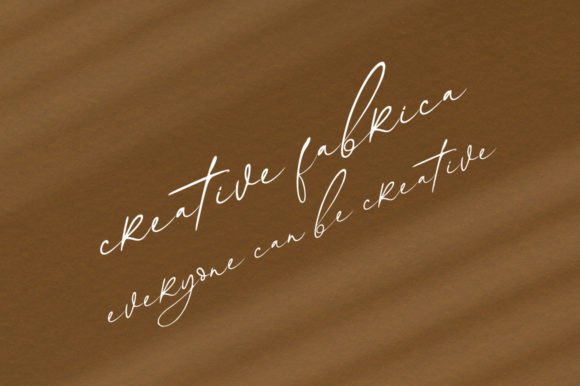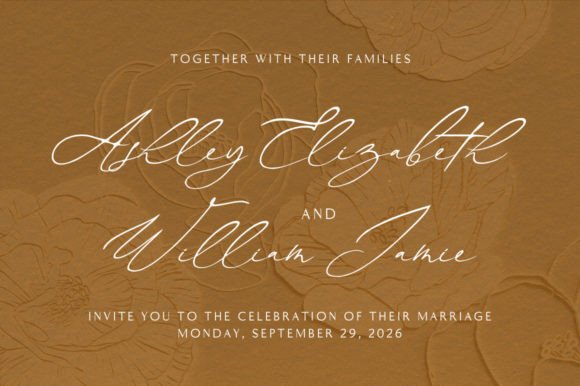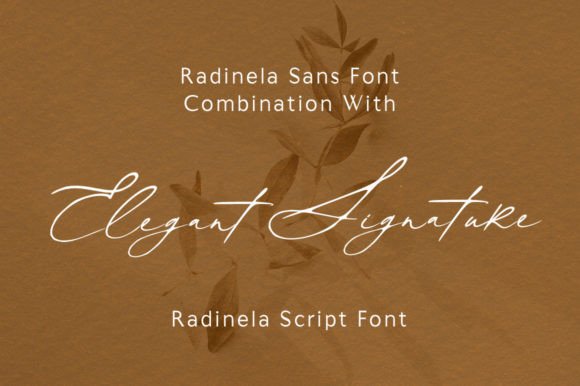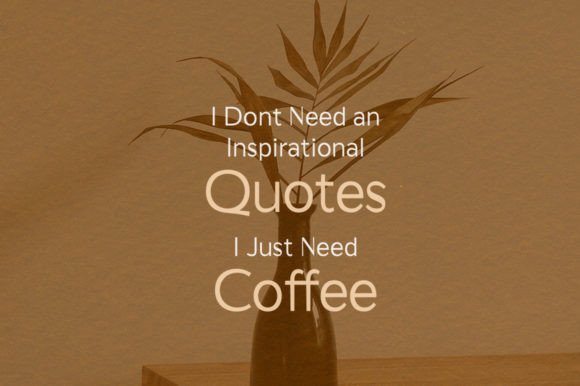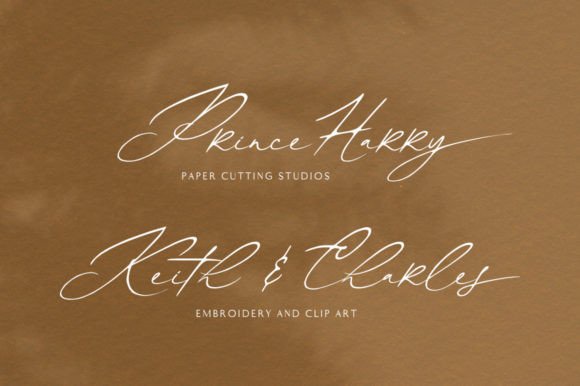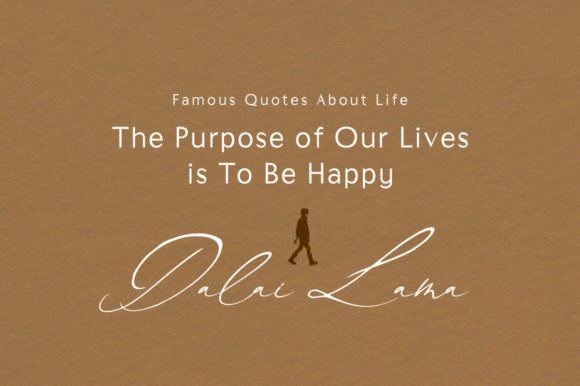
Introduction to Radinela Font
Imagine you’re working on a creative project and you’re struggling to find the perfect font to match your vision. The words on your screen blend together, and your design feels incomplete. That’s where the Radinela Font comes in – a stunning and versatile font that can elevate your design to the next level.
As a designer, you’re constantly on the lookout for high-quality design resources that can help you bring your ideas to life. The Radinela Font is a valuable addition to your toolkit, offering a sleek and contemporary aesthetic that’s perfect for headlines, introductory texts, and more. With its PUA encoded design, you’ll have access to all the glyphs and swashes you need to create a truly unique look.
Key Features of Radinela Font
- High-quality design resource ideal for creative projects, offering a unique and elegant style.
- Transparent background, making it easy to customize and use in different design applications.
- Available in multiple font sizes, ranging from 12pt to 72pt, allowing for flexibility in creative projects.
- High-resolution design (300 DPI) suitable for print and digital applications.
- Unique characteristics include elegant lines, smooth curves, and a touch of sophistication, making it perfect for branding, logos, and typography-based designs.
- Designed to be versatile, the Radinela Font is suitable for a wide range of creative projects, from business cards to website headers.
Honest Review: Radinela Font
As a designer, I’m always on the lookout for high-quality design resources to elevate my creative projects. The Radinela Font is one such resource that caught my attention. Upon closer inspection, I found that it’s a beautiful, elegant script font perfect for adding a touch of sophistication to any design.
What works well: ✨ The Radinela Font is incredibly versatile and can be used for a wide range of creative projects, from wedding invitations to branding materials. Its transparent background makes it easy to layer over other design elements, and its high quality ensures that it looks great at any size.
- High-quality design that looks great at any size
- Perfect for a wide range of creative projects
Limitations: ⚠️ While the Radinela Font is an excellent resource, it may not be the best option for designers who need a bold, sans-serif font. Additionally, some users may find the font to be a bit too ornate for certain projects.
Overall, I’m impressed with the Radinela Font and would highly recommend it to designers looking for a high-quality, elegant script font. Its versatility, high quality, and transparent background make it an excellent addition to any design resource library.
Tips for Getting the Most Out of Radinela Font
Use the Radinela Font on a transparent background to create a modern and sleek design. Experiment with different font sizes and colors to add visual interest to your design. Use the Radinela Font in combination with other design resources to create a unique and eye-catching creative project.
The Radinela Font is perfect for designing logos, brochures, and social media graphics. It’s also great for creating high-quality presentations and documents. With its transparent background and free download, the Radinela Font is a valuable design resource for any creative project.
Does the Radinela Font have a transparent background?
Yes, the Radinela Font has a transparent background, making it ideal for use on images and other design elements where a transparent font is required. This feature allows you to easily place the font on top of other design elements without worrying about a distracting background.